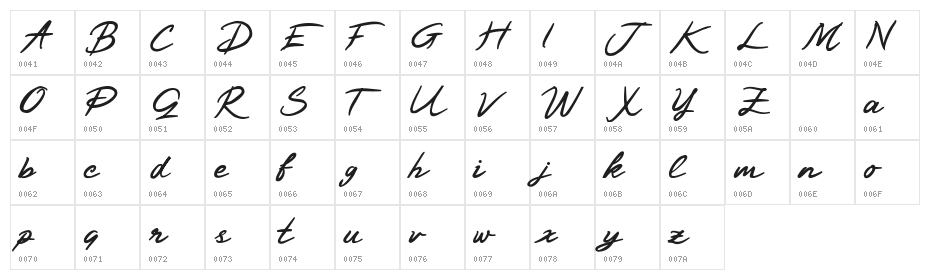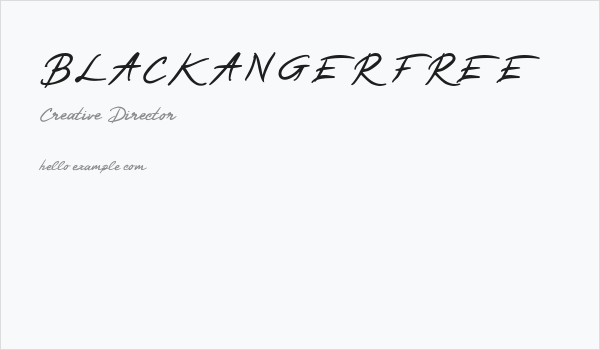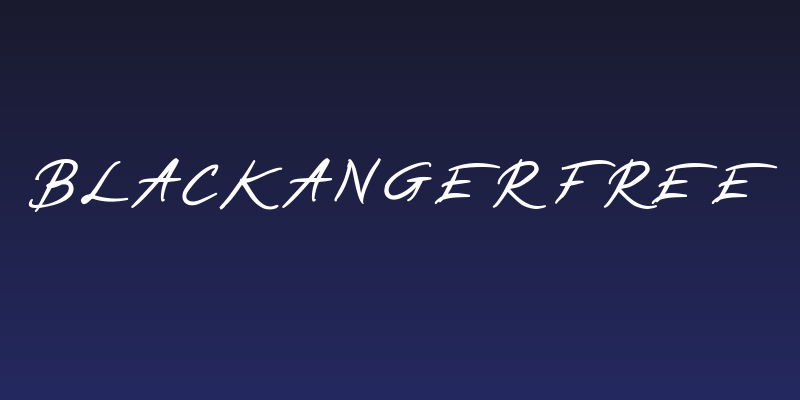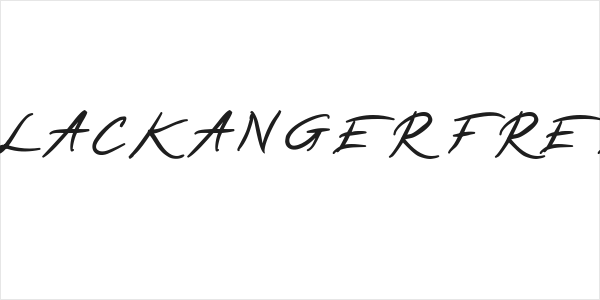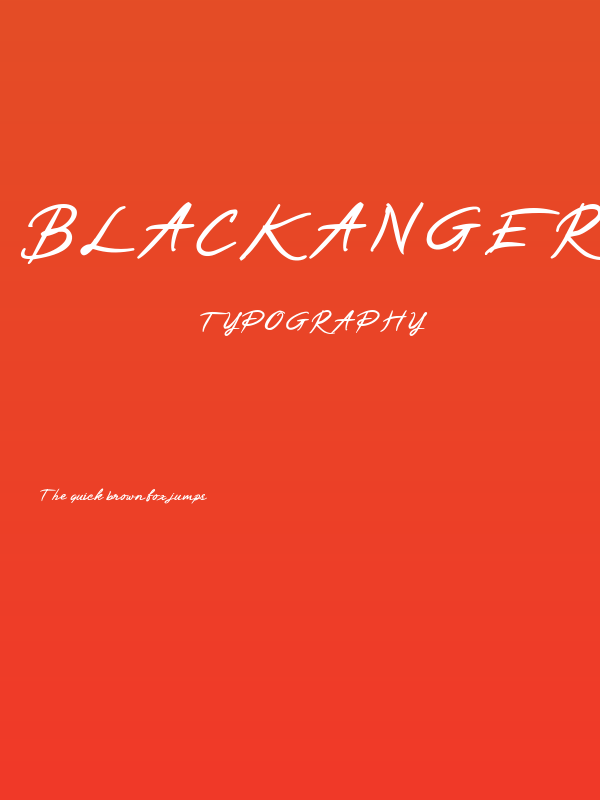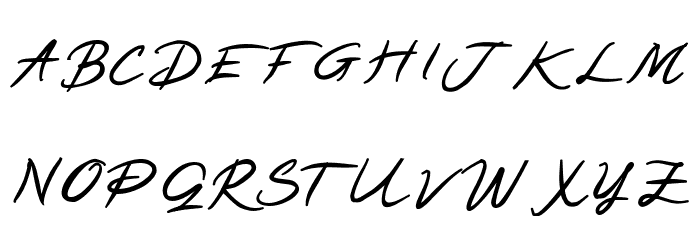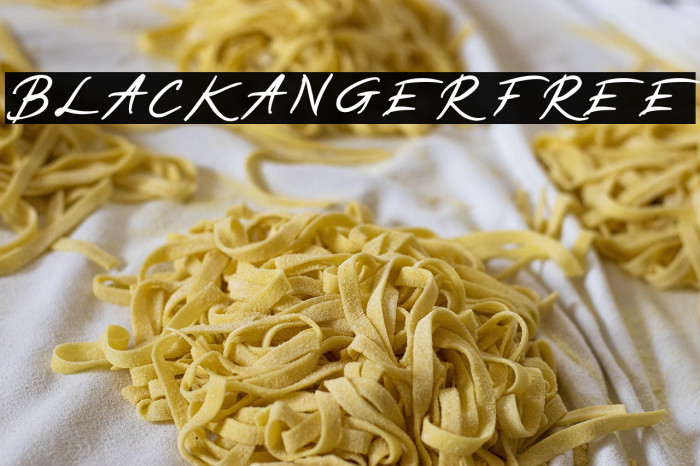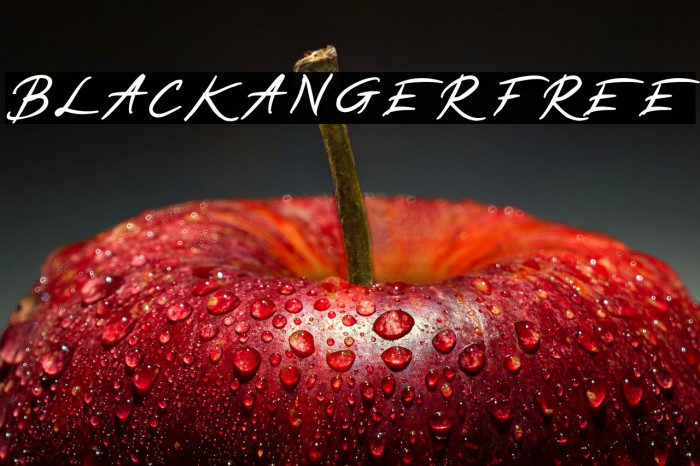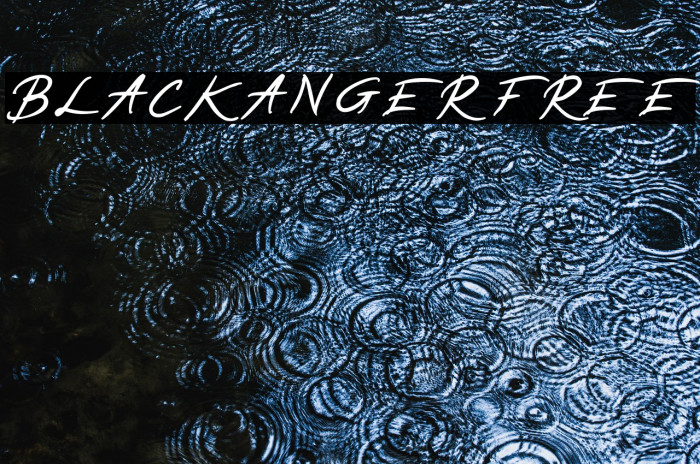
BLACKANGER FREE Font
BLACKANGER FREE Description
This font features a dynamic and flowing script style, characterized by its elegant cursive letters. The uppercase letters are slightly slanted, giving a sense of movement and grace. The lowercase letters maintain a consistent flow, with smooth connections between each character, enhancing readability while retaining a handwritten feel. The strokes are moderately thick, providing a balanced contrast that ensures visibility without overwhelming the design. This font exudes a personal and artistic touch, making it suitable for creative and expressive projects.
| Overall Style | Elegant, Artistic |
| Proposed Projects | Ideal for wedding invitations, greeting cards, personal branding, and artistic projects that require a touch of elegance and personality. |